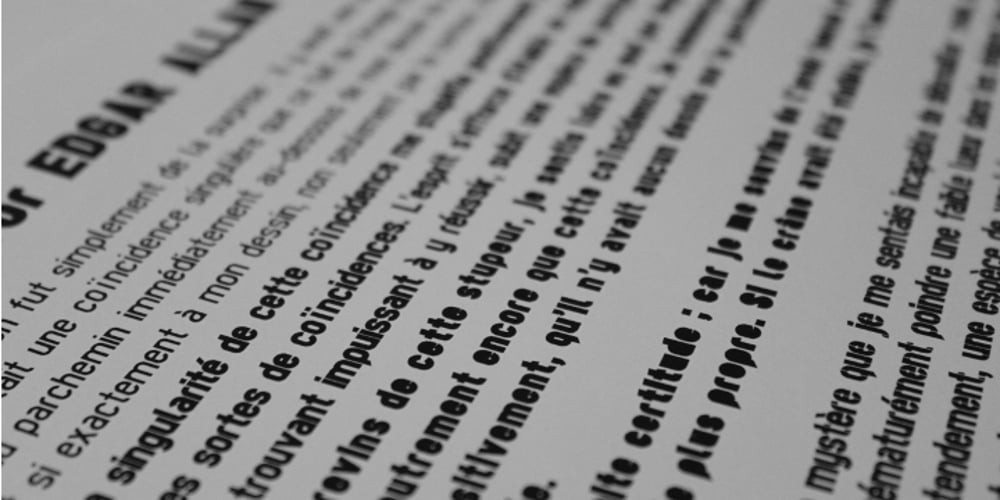
Tes font
Tes Font Family was designed by Thibault Dietlin and published by Alien. Tes contains 5 styles and family package options. The Tes family was designed specially for a limited-edition book about Nikola Tesla and Resonance Waves. It needed to be modern and complete for a multilingual version of the book.